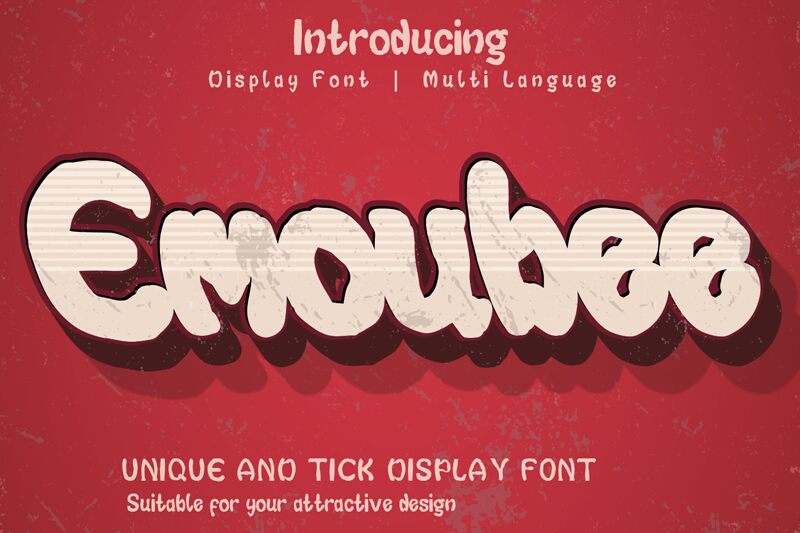
Emoubee font is a bold eroded display font designed by I Komang Sudiasa.
Emoubee font is good for designing wedding invitations, birthday invitations, menus and designs that require a handwritten display and others.